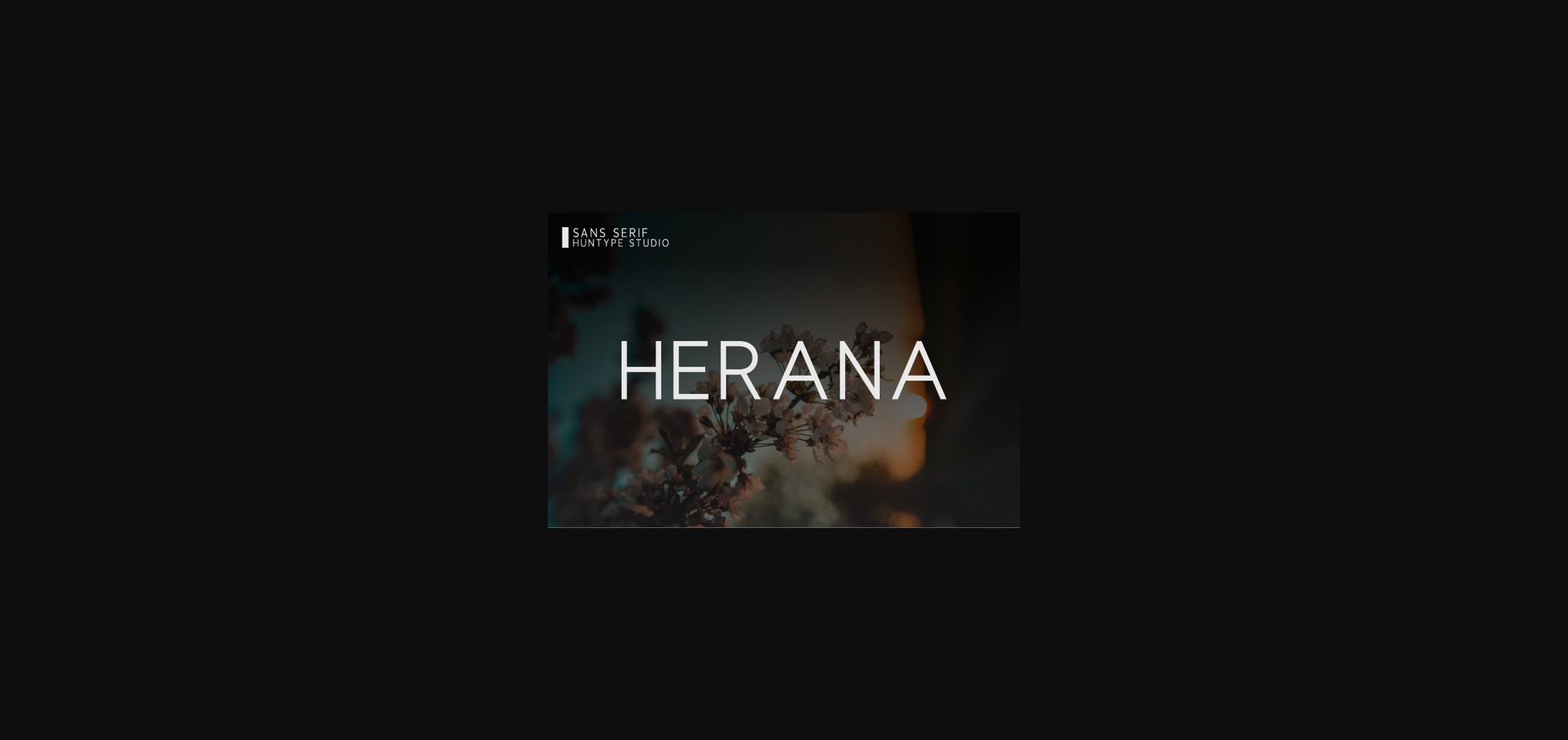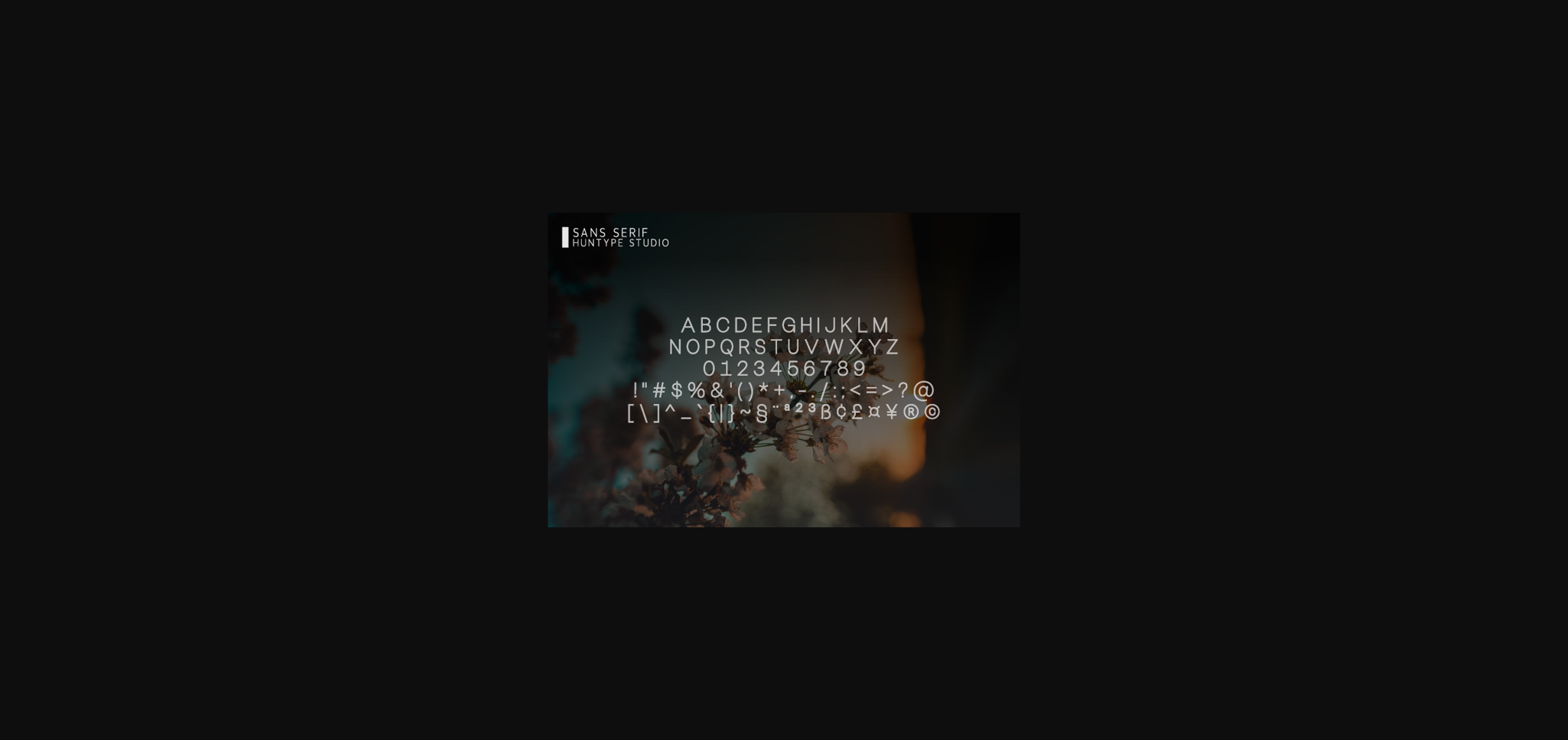
HomeSans Serif FontsHerana Font Sans Serif Fonts Herana Font FacebookXPinterestWhatsApp 1 of 4 ... Herana Font Poster 2... Herana Font Poster 3... Herana Font Poster 4... About Herana Font Herana is a simple and casual sans serif font with an undeniably clean feel. With its neat and beautiful arrangement of letters, this typeface will look outstanding in both formal and non-formal designs. DOWNLOAD NOW People also explored Excuse Me Font Clairdelune Font Baterfly Font Sunflower Font Christmas Font Selna Beauty Font Meylky Font Whotermelon Font Cute Woman Font 284 0 TagsHeranaHerana Font Previous articleMentol FontNext articleLianorth Font LEAVE A REPLY Cancel reply Comment: Please enter your comment! Name:* Please enter your name here Email:* You have entered an incorrect email address! Please enter your email address here Website: Save my name, email, and website in this browser for the next time I comment. Personal Use Free Makeba Font Personal Use Free Read more about this font Farmgarden Personal Use Free Read more about this font Wanita Cantik Personal Use Free Read more about this font Samureix Personal Use Free Read more about this font BLOG Using Fonts in Digital Marketing: Tips to Strengthen Your Brand Identity In the realm of digital marketing, every visual element plays a crucial role in shaping a brand's identity, and fonts are no exception. The... Where to Buy American Fonts Online in 2024 Transform Your Website: Elevate Your Typography with 7 Best Web Font Generators Exploring Font Trends